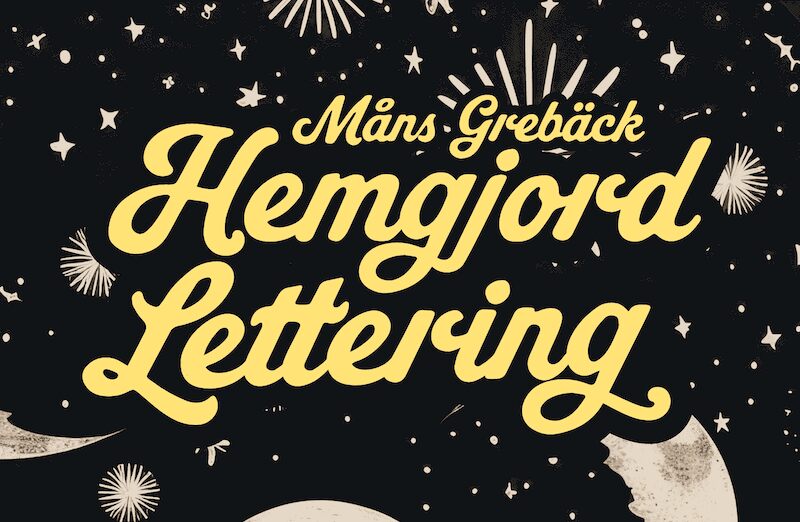
Hemgjord Lettering font by Mans Greback is an extravagant brush font that takes elegance of the past and translates it into a modern-day form. With ornamental flair and vintage-inspired design, this elegant typeface captivates readers with its uniqueness. All the beautiful strokes together provide an expressive mood with historical charm which naturally stands out in any creative scene.
Since the beautiful features can be put to infinite use, this free logotype script font would be great for magazine covers, book titles, restaurant menus and invitations. It would also fit into packaging designs but can make just as much impression when used in poems, inspirational quotes or comic books.